When it comes to design, finding the perfect font pairing is crucial. Balancing style with readability is key, and the fonts you choose can set the tone and personality of your creation, whether it’s a website, poster, or business card. In this article, we’ll explore 18 popular Canva font pairings that designers around the world love. These combinations are powerful tools for making your designs stand out and communicate clearly, ranging from elegant and sophisticated to modern and dynamic. These versatile font duos can elevate your design game and are perfect for various design projects.
1. Montserrat & Merriweather
Montserrat is a sans-serif font known for its versatility and modern feel, with clean lines and geometric forms that make it suitable for a wide range of designs. It is often used in headings and logos for its contemporary and unassuming style. Merriweather, a serif font, provides a nice contrast with its classic and easy-to-read appearance, making it excellent for body text.
Why designers love it: This pairing is loved for its balance between modernity and tradition, providing a professional yet friendly look, ideal for business websites and digital content.
2. Playfair Display & Source Sans Pro
Playfair Display is a serif font with high contrast and distinctive style, often used for titles and headings to convey elegance and sophistication. Source Sans Pro is a sans-serif font designed for user interfaces, characterized by its readability and simplicity, making it perfect for body text.
Why designers love it: Designers appreciate this pairing for creating a refined and accessible aesthetic, ideal for fashion brands, magazines, and any design that demands a touch of elegance.
3. Raleway & Lato
Raleway is a sans-serif font with a clean and elegant design, often used in headers and titles. Its airy letter spacing gives a feeling of sophistication. Lato, also a sans-serif, is known for its warm and friendly character, which complements Raleway’s formality, making it suitable for body text.
Why designers love it: This combination is popular for its modern and approachable look, perfect for corporate websites, portfolios, and marketing materials.
4. Oswald & Roboto
Oswald is a reworking of the classic gothic typeface, with a modern touch. It’s great for headers and menus due to its high impact and legibility at various sizes. Roboto offers a mechanical skeleton and friendly curves, balancing the straightforwardness of Oswald, making it ideal for body text.
Why designers love it: Designers love this pair for its clean and universal appeal, suitable for a wide range of applications from news websites to tech startups.
5. Futura & Helvetica
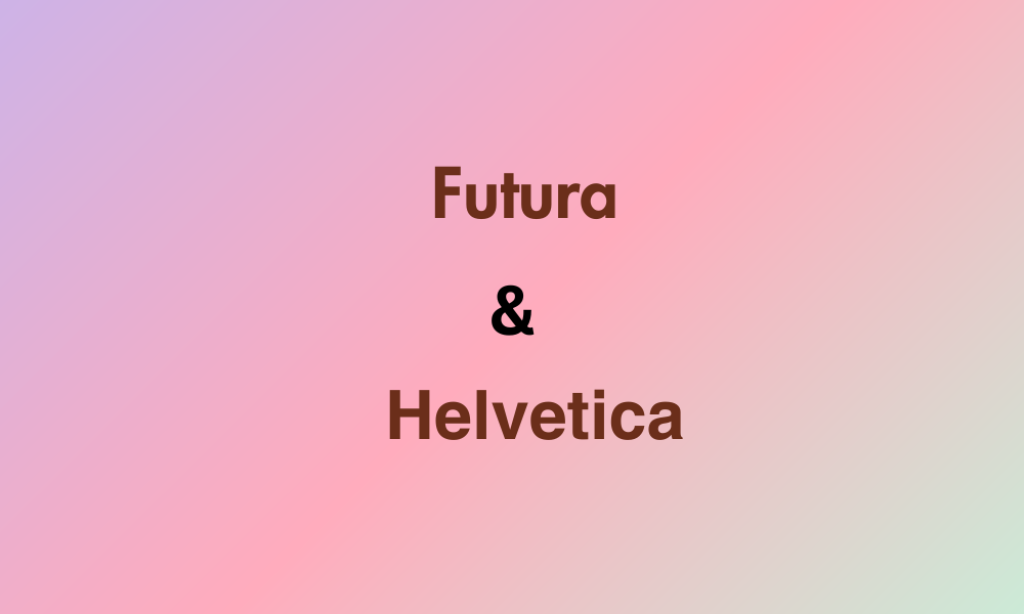
Futura, a geometric sans-serif font, is known for its forward-looking and efficient design, often used in logos and headings. Helvetica, arguably the most famous sans-serif font, is celebrated for its neutrality and clarity, perfect for body text and detailed information.
Why designers love it: This font duo is favored for its timeless, professional look, making it perfect for branding, corporate communications, and high-end editorial design.
6. Lobster & Cabin
Lobster is a playful script font known for its distinctive and bold letterforms, ideal for attention-grabbing headings or logos. Cabin is a humanist sans-serif with a neutral and versatile appearance, providing a solid base for body text that complements Lobster’s flamboyance.
Why designers love it: This pairing is often used in creative and casual designs, such as invitations, restaurant menus, and websites that aim to convey a friendly and inviting atmosphere.
7. Abril Fatface & Lora
Abril Fatface is part of a larger typeface family inspired by 19th-century advertising, known for its bold and striking appearance, perfect for headlines and highlights. Lora is a well-balanced serif font with roots in calligraphy, giving it a smooth and contemporary feel, ideal for body text.
Why designers love it: Designers love this combination for its dramatic yet refined quality, making it suitable for editorial websites, book covers, and luxury brand marketing.
8. Genty & Montserrat
Genty is a modern, elegant script font with flowing curves and a personal touch. Its cursive style brings a humanistic element to designs. Montserrat, a geometric sans-serif, provides a clean and neutral counterpoint to Genty’s expressiveness, ensuring readability and balance.
Why designers love it: Designers love this pairing for its blend of personality and functionality, making it ideal for branding, invitations, and upscale marketing materials.
9. Bright Retro & Raleway
Bright Retro embodies a fun and lively style, reminiscent of vintage design, with bold and quirky letterforms. Raleway, with its clean and straightforward appearance, offers a modern contrast to the decorative nature of Bright Retro.
Why designers love it: This combination is favored for its dynamic balance, capturing attention while maintaining a clean and readable layout, perfect for creative posters and social media graphics.
18. Tan Pearl & Arimo
Tan Pearl is a serif font with a classic and refined look, providing a sense of reliability and tradition. Arimo is a sans-serif font that mirrors the functionality of Arial but with a more contemporary and friendly finish.
Why designers love it: Designers choose this pair for its timeless elegance and modern clarity, making it well-suited for corporate and academic materials that benefit from a blend of the old and the new.